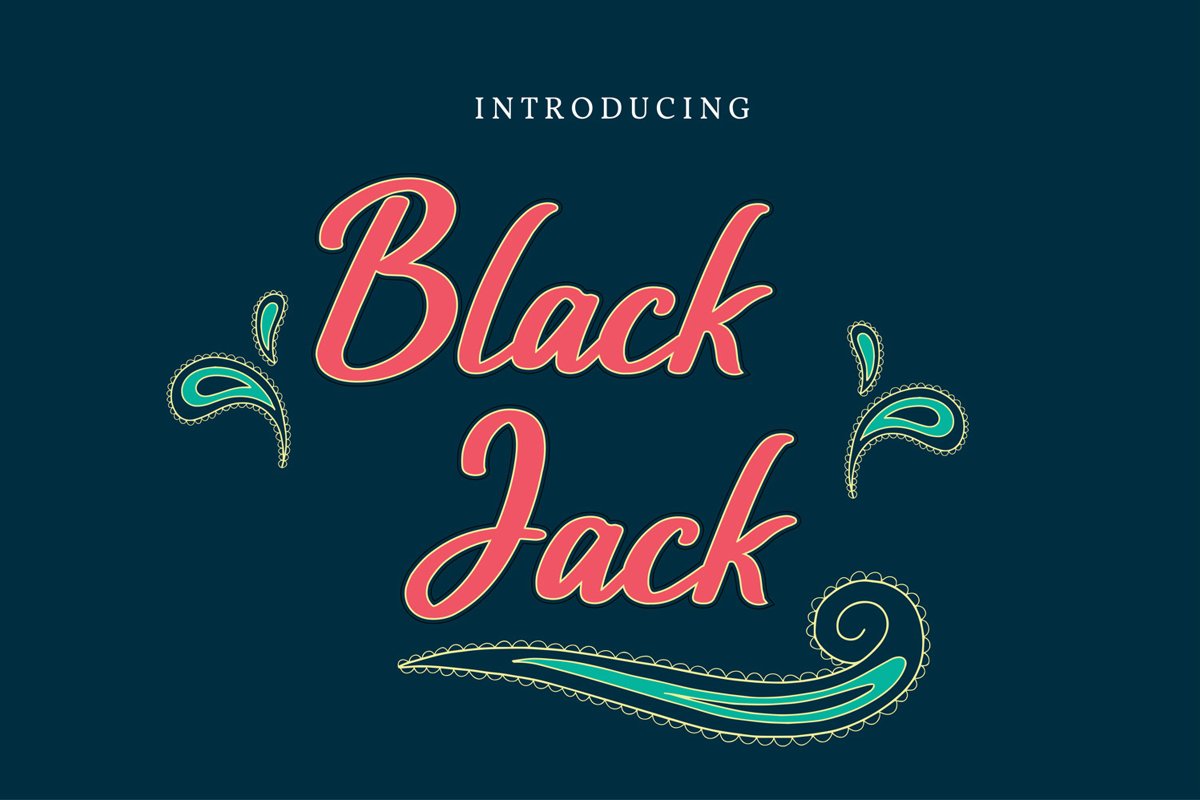
Black Jack is a Script font duo that come with equipped with OpenType feature to make custom feel for your design. This font will give your designs that fresh, the fonts are great for product logo,wedding card logo, Banner, Graphic design, clothing brand logo, and much more.
FEATURED:
• Uppercase,
• Numeral
• Alternate Glyphs
• International Glyphs